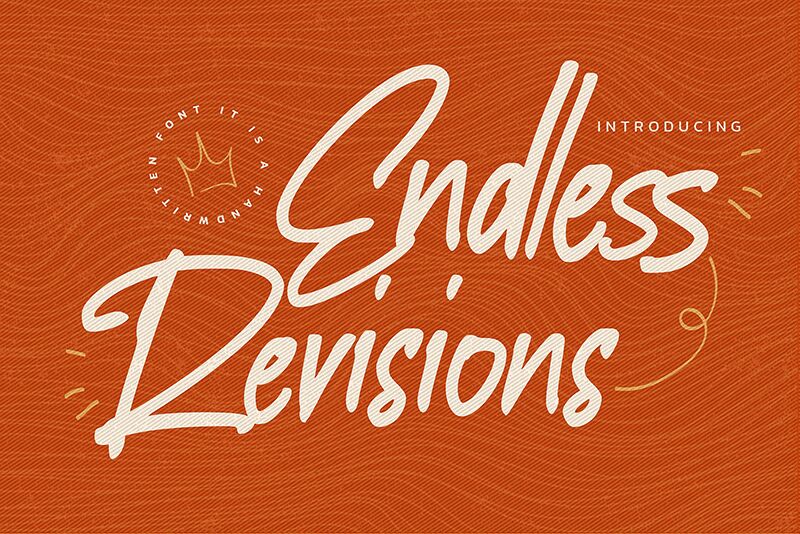
Endless Revisions
Discover the artistry of 'Endless Revisions', a font that truly captures the essence of spontaneity and modern charm. Crafted by the skilled hands at Gassstype, this semi-light handwritten font boasts a flowing, contemporary style infused with dramatic movement, as if penned in a swift, inspired moment.
With its textured strokes and authentic feel, Endless Revisions brings an organic touch to your creative endeavors. From sleek labels to eye-catching posters, this font is versatile enough to enhance projects that demand a modern and cool aesthetic. It's not just about looks; functionality is key—activate Ligatures in the OpenType panel for an even more seamless experience.
Ideal for branding or packaging that seeks to stand out, greeting cards yearning for a personal touch, or websites aiming for an engaging presence—Endless Revisions is your go-to typeface for making every project feel like a personal masterpiece.